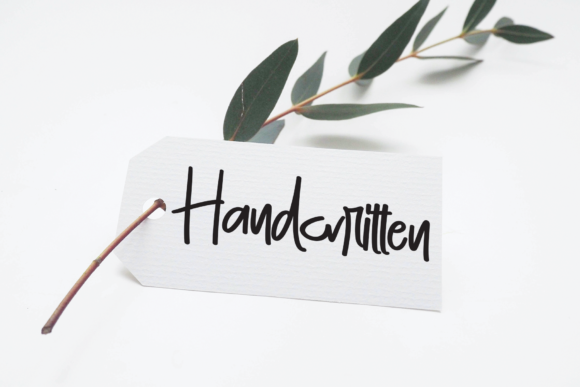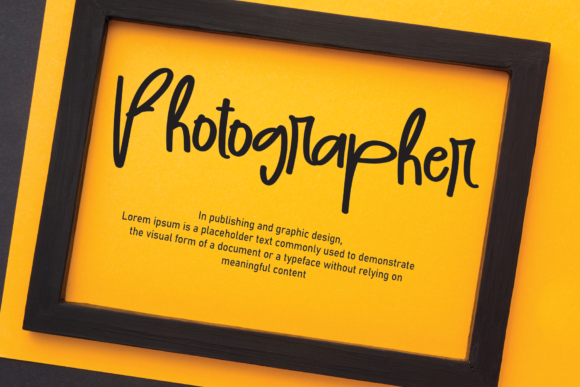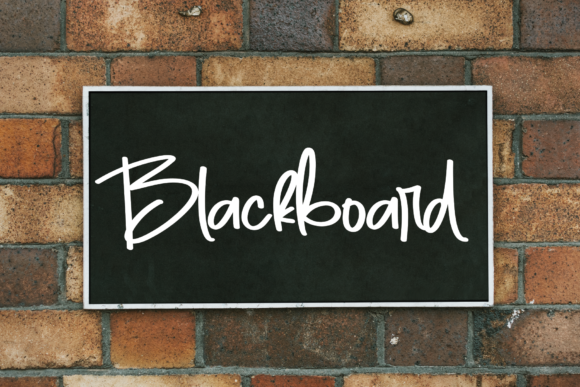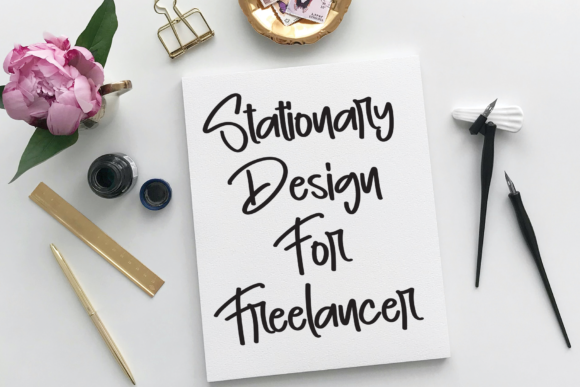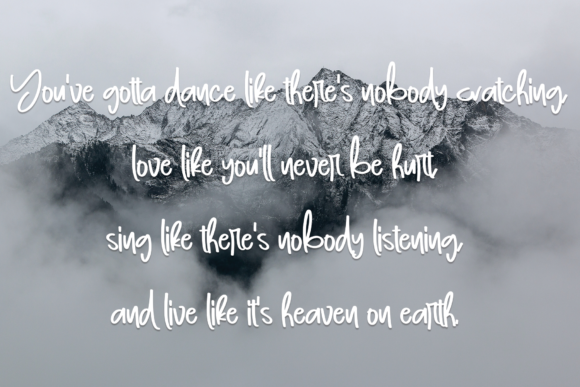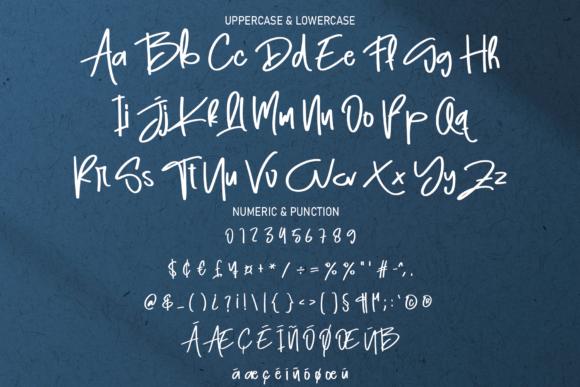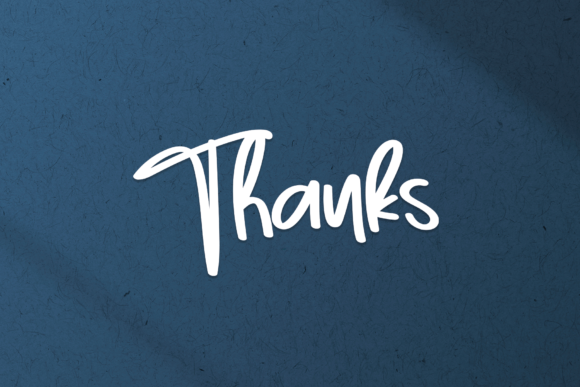
Good Day Font
About Good Day Font
“Good Day” emerges as a timeless and straightforward handwritten script font, exuding a classic charm crafted with a touch of randomness and freedom. Its versatile nature makes it a fitting choice for an extensive range of creative design projects across various industries and platforms.
In the realm of branding, “Good Day” proves itself as a standout candidate for logotypes, offering a classic and handcrafted aesthetic that communicates brand identity effectively. Its simplicity and unique style make it equally suitable for headline fonts, allowing it to command attention and convey messages with a touch of authenticity.
The font seamlessly integrates into corporate identity and brand development, where its classic yet free-spirited script can enhance the visual representation of a company or product. In the apparel industry, “Good Day” adds a stylish and personalized touch, making it an excellent choice for labels, tags, and promotional materials.
For promotional materials such as posters, the font’s classic appeal stands out, creating eye-catching designs that resonate with a broad audience. Its adaptability extends to the realms of music, movies, and games, where “Good Day” contributes a timeless and unique aesthetic, enhancing the visual identity of albums, movie posters, and game graphics.
In the world of print media, including magazines, books, comics, and cartoons, “Good Day” brings a classic and simple elegance to headlines and titles. Its handcrafted charm adds character to illustrated storytelling, making it a versatile choice for creative publications.
In the digital sphere, “Good Day” finds its place on YouTube and Instagram, lending a friendly and approachable look to channel branding, video titles, and social media posts. Its readability and classic style make it a suitable option for website design, creating a cohesive and visually appealing online presence.
In summary, “Good Day” is not just a font; it’s a versatile design tool that seamlessly fits into logotypes, headlines, corporate identities, the apparel industry, posters, music, movies, games, magazines, books, comics, cartoons, YouTube, Instagram, and websites. Its classic simplicity, coupled with a touch of randomness, makes it a valuable asset for a wide array of creative projects.